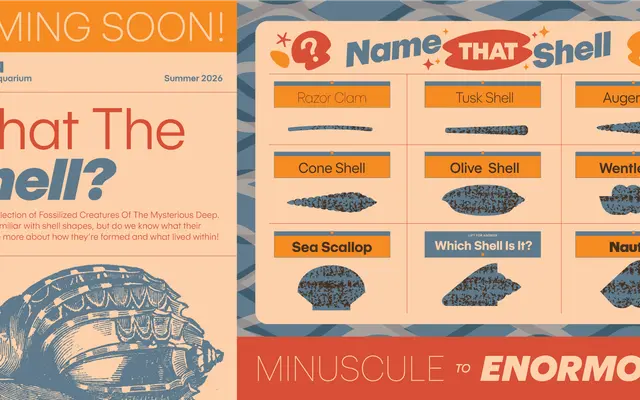
Route Sans
Fort Foundry · Mattox Shuler, Brian Brubaker
A geometric sans in 9 weights with matching italics, derived from the Digiset tradition and built for editorial, branding and wayfinding work.
An offshoot of Fort Foundry's Scenic Sans, Route Sans takes the geometric strand of the early digital typeface Digiset as its reference point, with a small set of alternate letters giving it a distinctly contemporary character. Eighteen static styles run from Thin to Black with matching italics, accompanied by a variable version. The family is positioned for sustained use across editorial, branding, wayfinding and information design.
Route Sans is described as taking a geometric approach derived from Digiset's geometric N-style variants, distinguishing it from its grotesk-leaning sibling Scenic Sans through a handful of alternate letterforms.